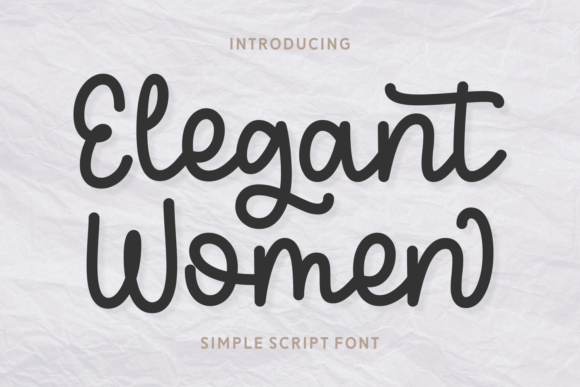
A Font That Speaks to Your Inner Diva
As you sit down to plan the perfect wedding invitation or craft a brand identity that screams luxury, you know that the right font can make all the difference. It’s that moment when inspiration strikes, and you envision a beautiful, flowing script that exudes elegance and sophistication. For designers, finding the perfect font can be a challenge, but with Elegant Women Font, you can rest assured that your designs will shine with a touch of glamour.
Elegant Women Font is a bold, handwritten font that embodies the essence of femininity and style. Its flowing letters add a touch of charm and sophistication, making it perfect for designs that require a touch of luxury. Whether you’re creating an invitation, branding, or any project that demands elegance, Elegant Women Font is a valuable addition to your design toolkit.
Elegant Women Font Key Features
- Font Style: Elegant, Script, Handwritten
- Unique Characteristics: Hand-drawn design, elegant swashes, and beautiful ligatures
Elegant Women Font Review
Overall, I have mixed feelings about the Elegant Women Font. While it’s a beautiful and unique addition to any design project, it’s not without its limitations.
- The Elegant Women Font has a distinctive, elegant feel that’s perfect for high-end or luxury brands.
- The font is highly customizable, allowing you to adjust the weight, spacing, and style to suit your design needs.
- The font is well-suited for use in logos, headings, and body text, making it a versatile addition to any design project.
- The Elegant Women Font can be difficult to read at small sizes, making it less suitable for body text in small font sizes.
- The font may not be suitable for use in bold or italic styles, as it can become distorted or hard to read.
- The font is not optimized for use in digital environments, which may result in pixelation or blurriness at small sizes.
While the Elegant Women Font is a beautiful and unique addition to any design project, its limitations make it less suitable for use in certain contexts. With careful planning and design, it can be a stunning choice for high-end or luxury brands, but it may not be the best choice for every project.
Use the Elegant Women Font for headings and titles to add a touch of elegance to your designs.
Combine the Elegant Women Font with other elegant fonts to create a cohesive look.
Branding and marketing materials
Editorial and lifestyle publications
Alternatives to Elegant Women Font
Great Vibes is a beautiful, elegant script font that’s perfect for adding a touch of sophistication to your designs. It features a flowing, handwritten feel that’s great for titles, quotes, and other decorative text. Compared to Elegant Women Font, Great Vibes has a more relaxed, casual feel that’s perfect for modern designs.
Carolyna Pro is a luxurious, high-end script font that’s perfect for luxury brands, fashion, and beauty designs. It features a elegant, cursive feel that’s great for titles, headings, and other prominent text. Compared to Elegant Women Font, Carolyna Pro has a more refined, polished feel that’s perfect for high-end designs.
Lobster is a fun, playful script font that’s perfect for adding a touch of whimsy to your designs. It features a bold, cursive feel that’s great for titles, headings, and other decorative text. Compared to Elegant Women Font, Lobster has a more casual, laid-back feel that’s perfect for modern, trendy designs.
Alex Brush is a elegant, handwritten font that’s perfect for adding a touch of sophistication to your designs. It features a flowing, brush-written feel that’s great for titles, quotes, and other decorative text. Compared to Elegant Women Font, Alex Brush has a more natural, organic feel that’s perfect for designs that need a more human touch.
Project Ideas Using Elegant Women Font
Project 1: Wedding Invitation
The Elegant Women Font is perfect for a luxurious and sophisticated wedding invitation. This font exudes elegance and refinement, making it ideal for a high-end wedding.
Q: What is the recommended font size and line height for optimal readability with the Elegant Women Font?
For optimal readability, we recommend using font sizes between 12-24 points and a line height of at least 1.2-1.5 times the font size. This will ensure that the text remains clear and easy to read, even at smaller sizes.